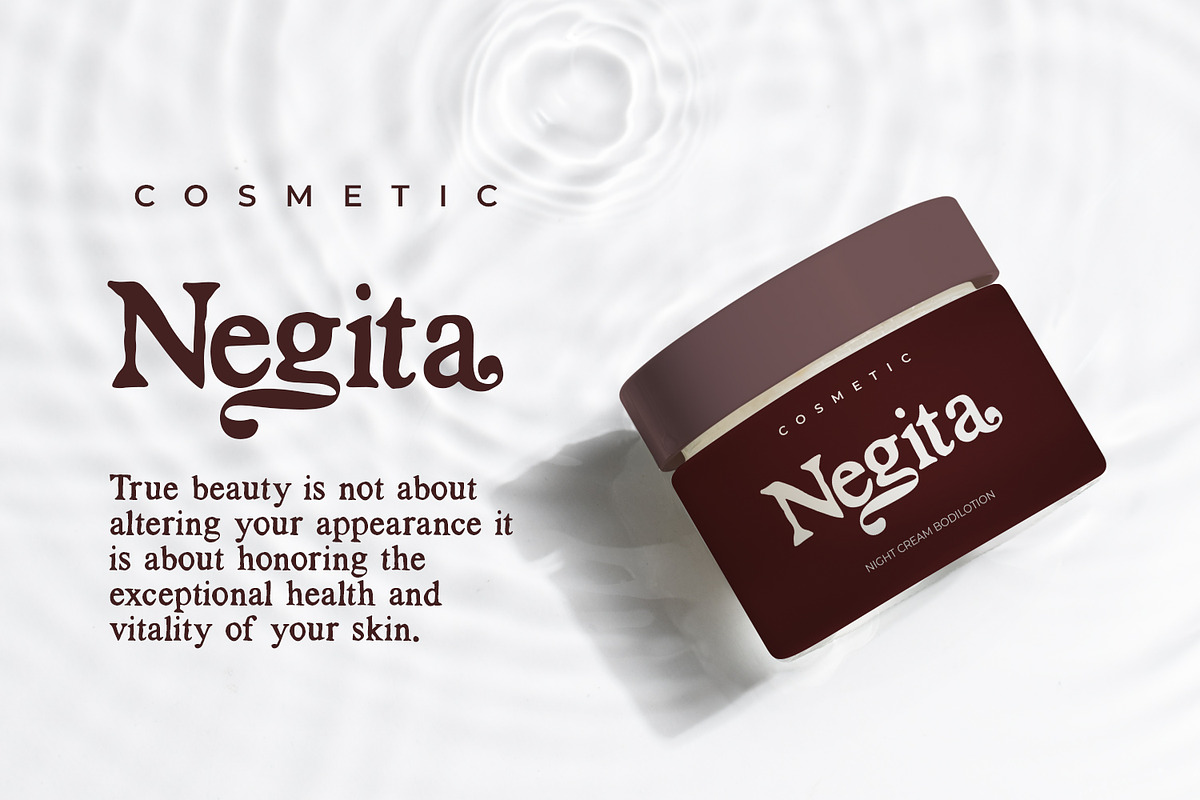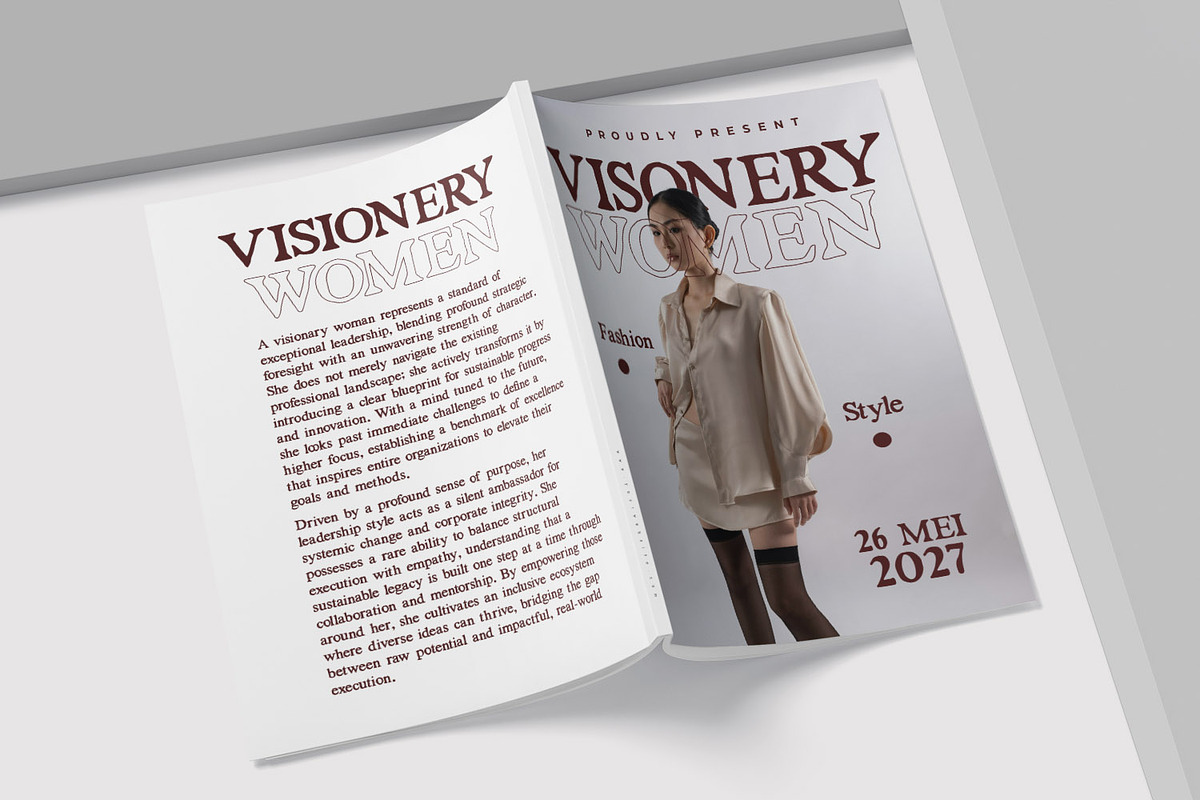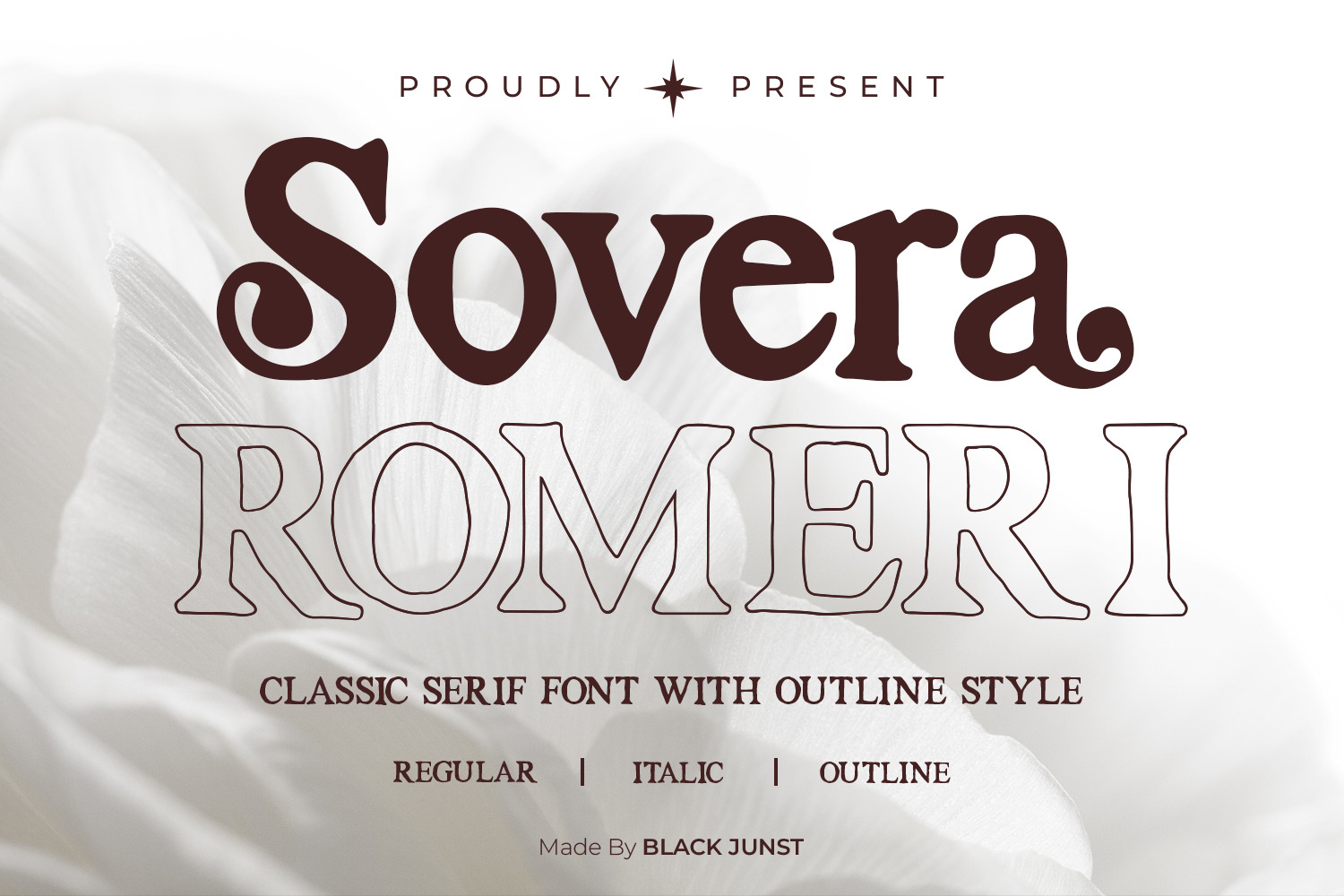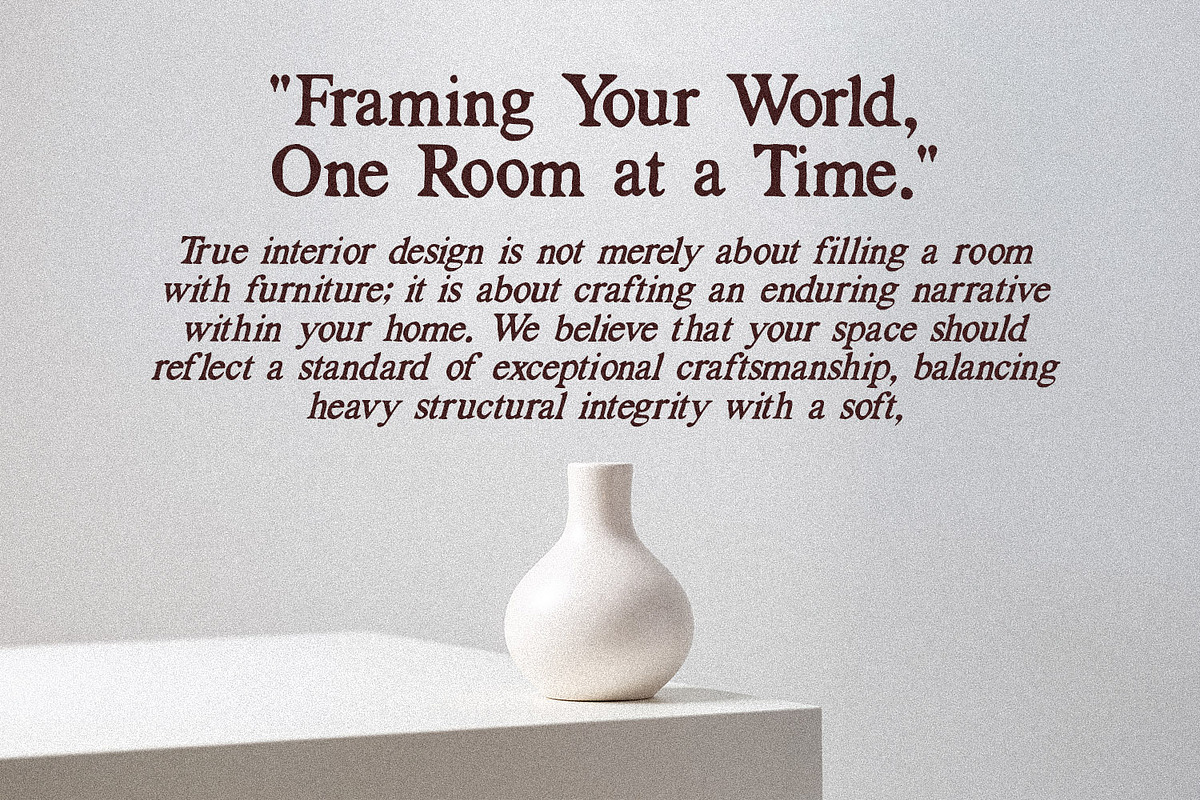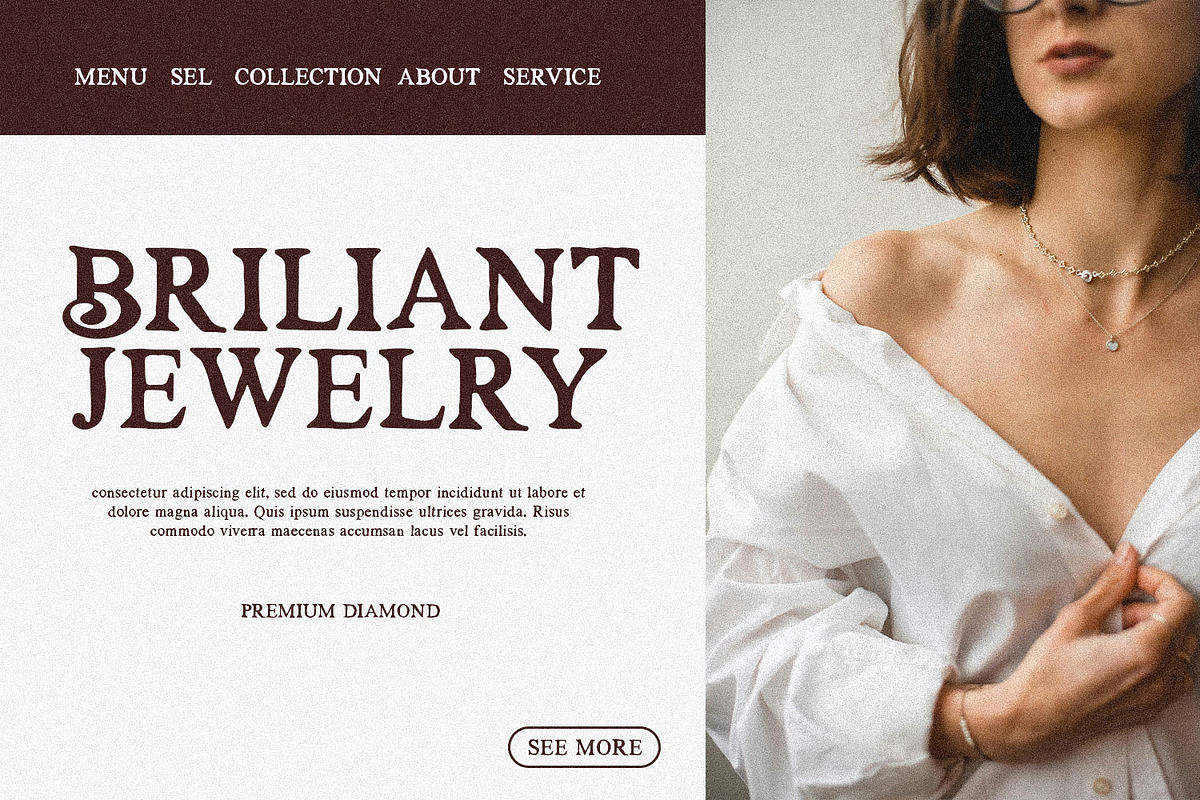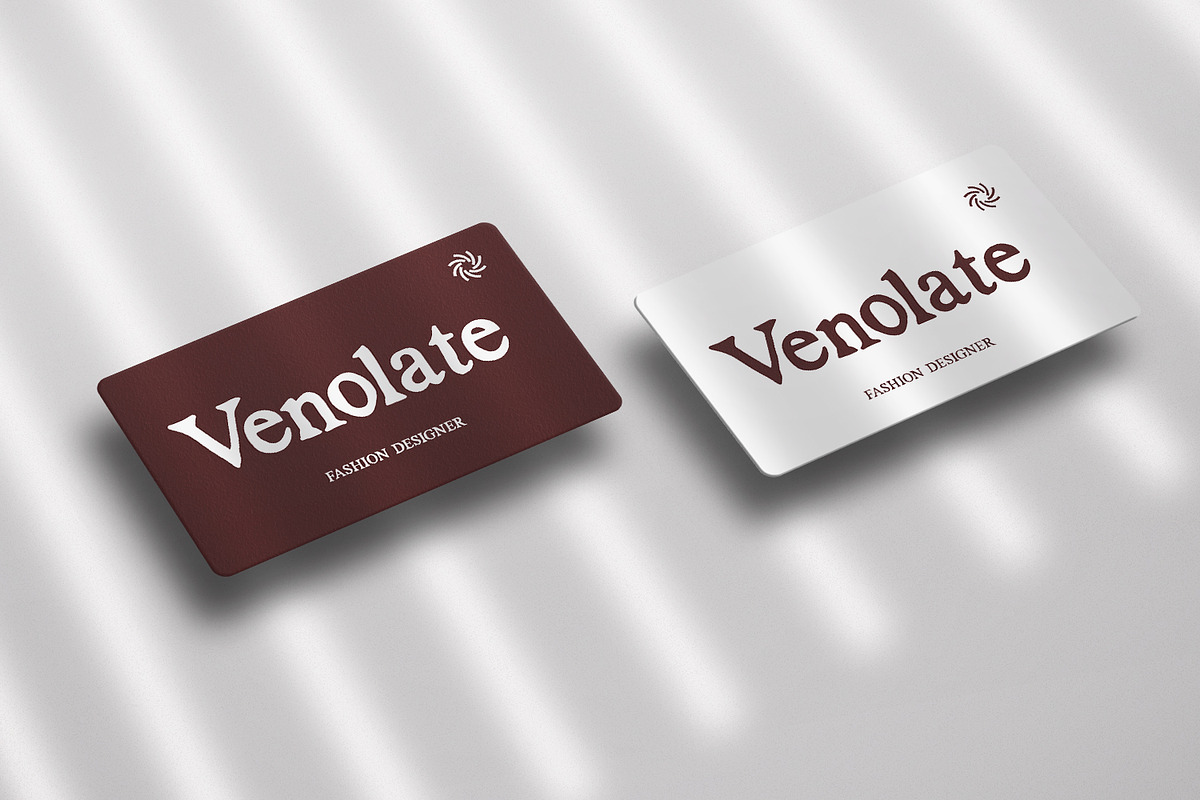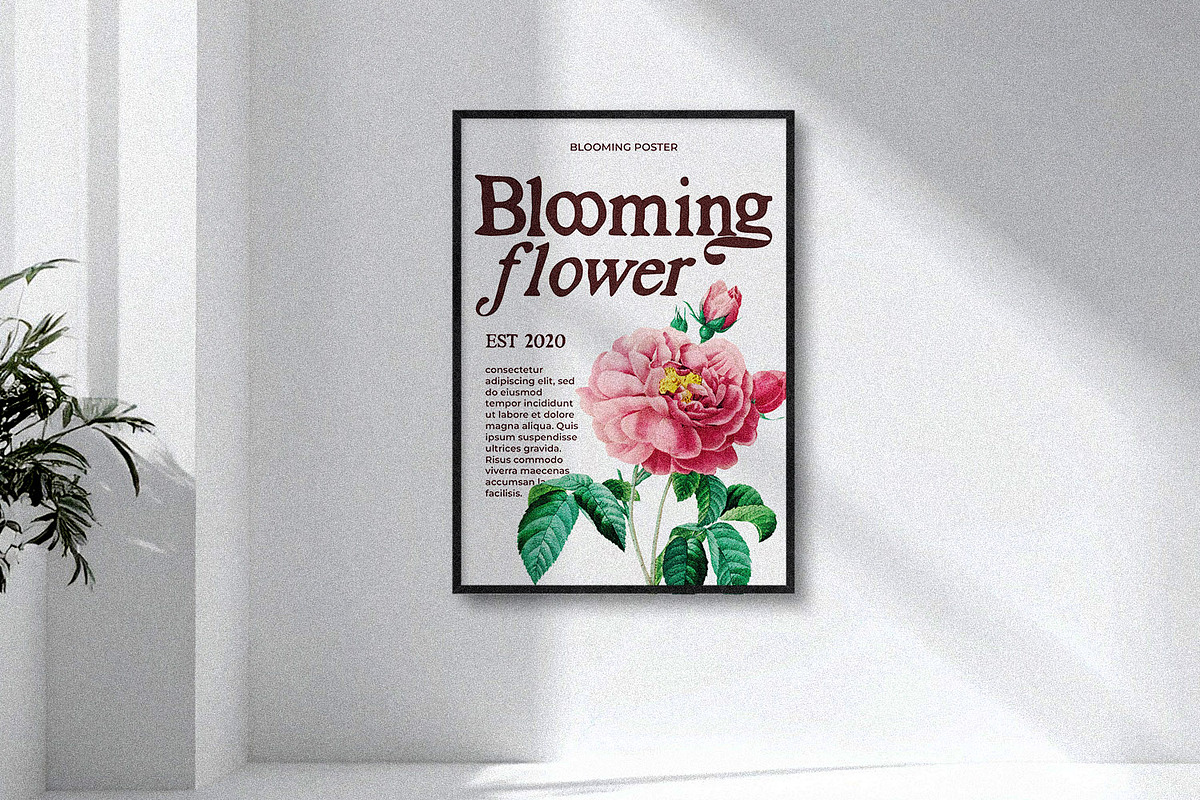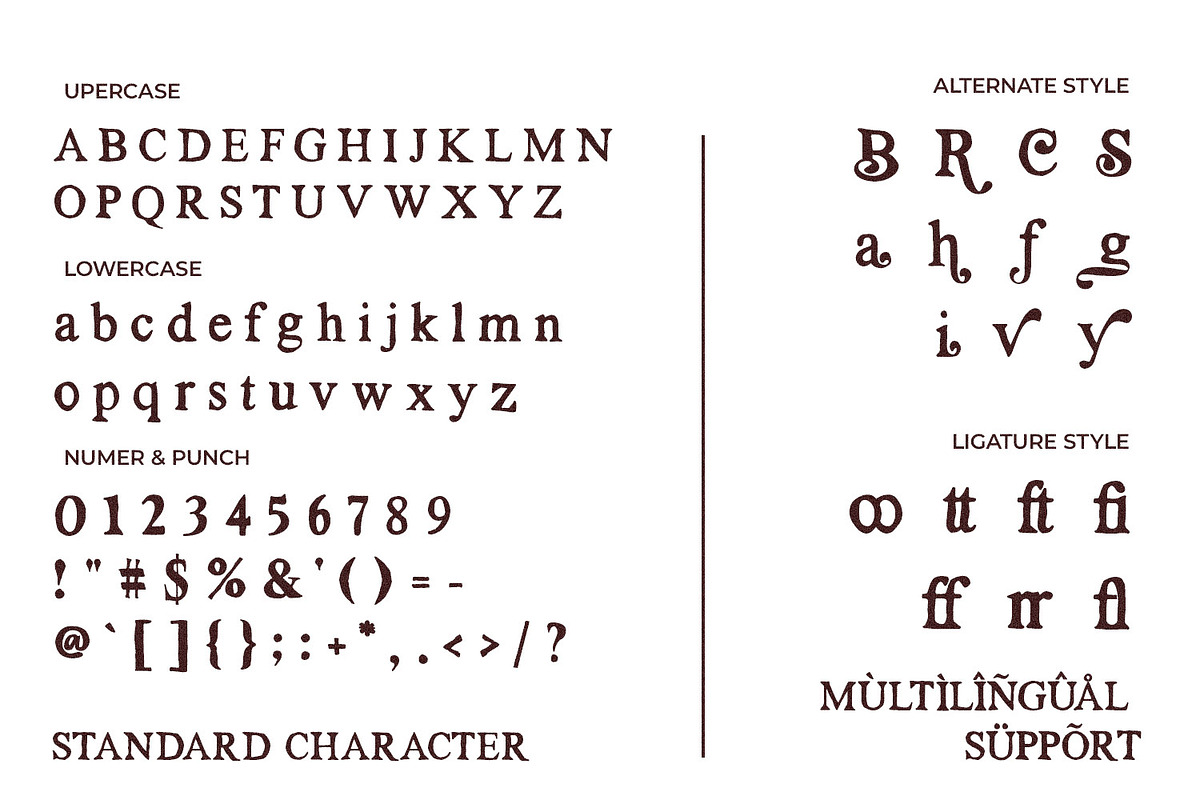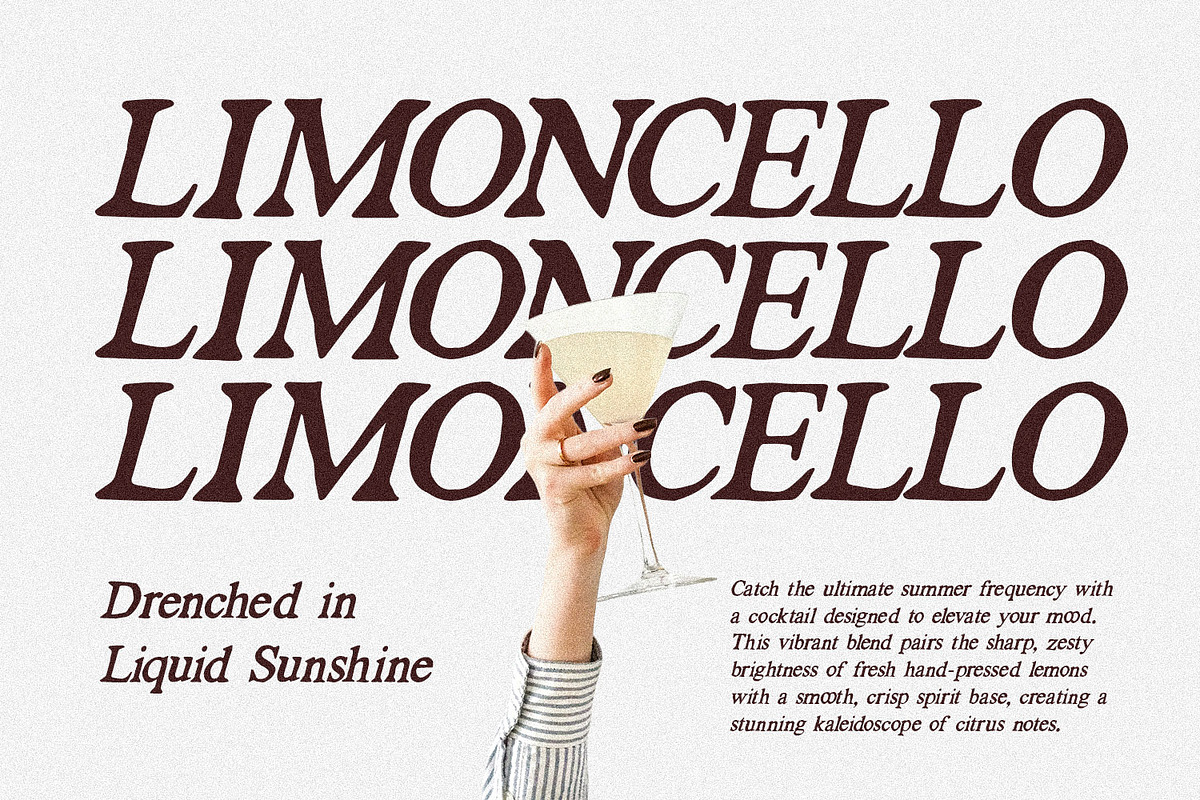
Sovera Romeri - Serif Font Family
Sovera Romeri is a timeless classic serif font family crafted to bring elegance, sophistication, and vintage charm into your creative projects. Featuring beautifully sculpted letterforms, graceful curves, and a distinctive outline companion style, this font is designed for designers who want to create luxurious and memorable typography.
Whether you're designing branding, logos, wedding invitations, editorial layouts, packaging, beauty products, fashion campaigns, social media content, or premium marketing materials, Sovera Romeri delivers a refined and professional appearance with effortless readability.
The family includes Regular, Italic, and Outline styles, allowing you to create stunning layered typography effects, elegant headlines, and eye-catching display designs.
Luxury Branding
Fashion Logos
Wedding Invitations
Editorial & Magazine Design
Cosmetic Branding
Restaurant & Café Branding
Social Media Templates
Product Labels
Home Decor Quotes
Boutique Branding
Vintage Inspired Designs
Currency Symbols
Regular Style
Italic Style
Outline Style
Create elegant, sophisticated, and unforgettable typography with Sovera Romeri, a serif family designed to elevate modern luxury branding and premium design projects.